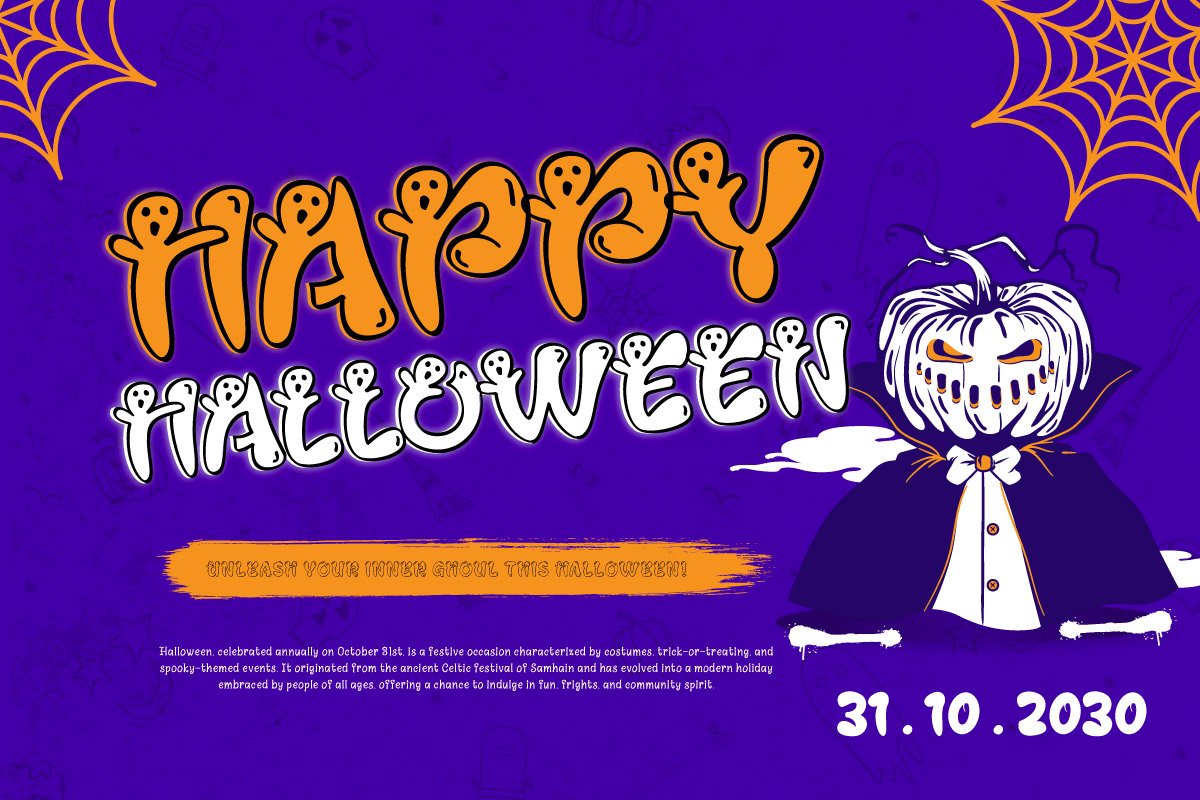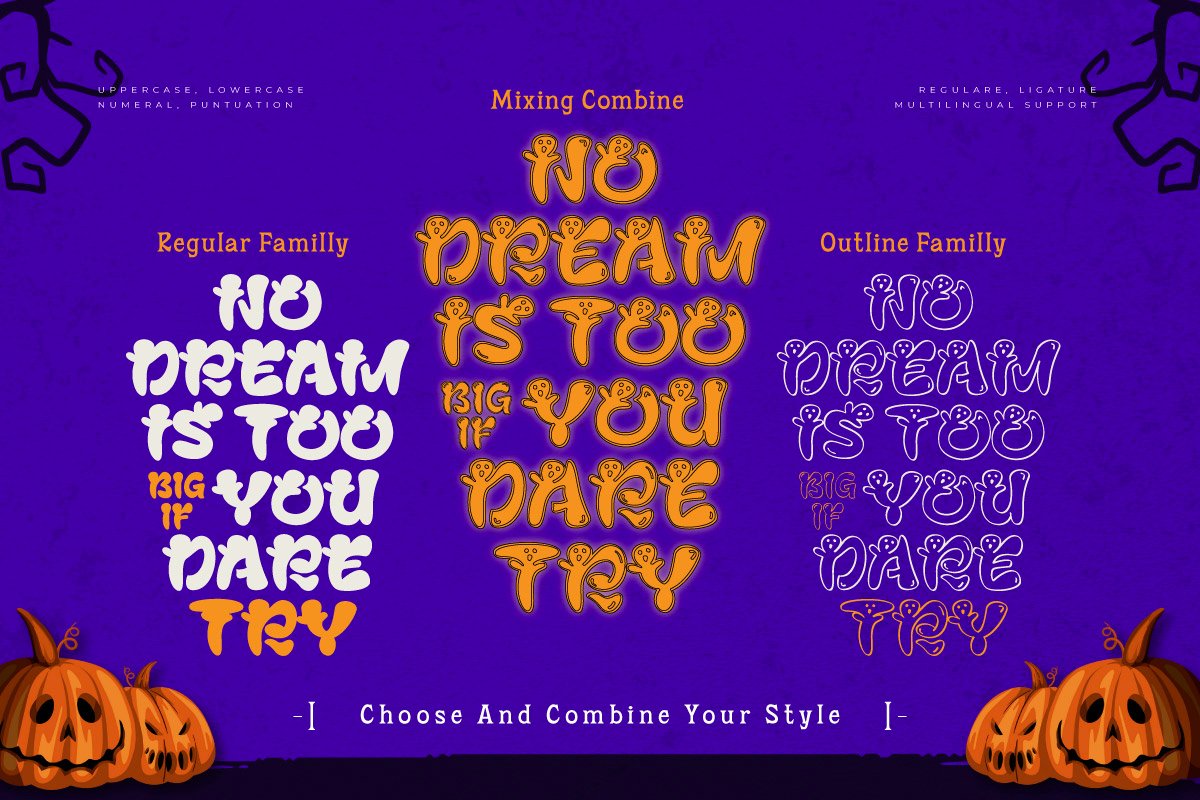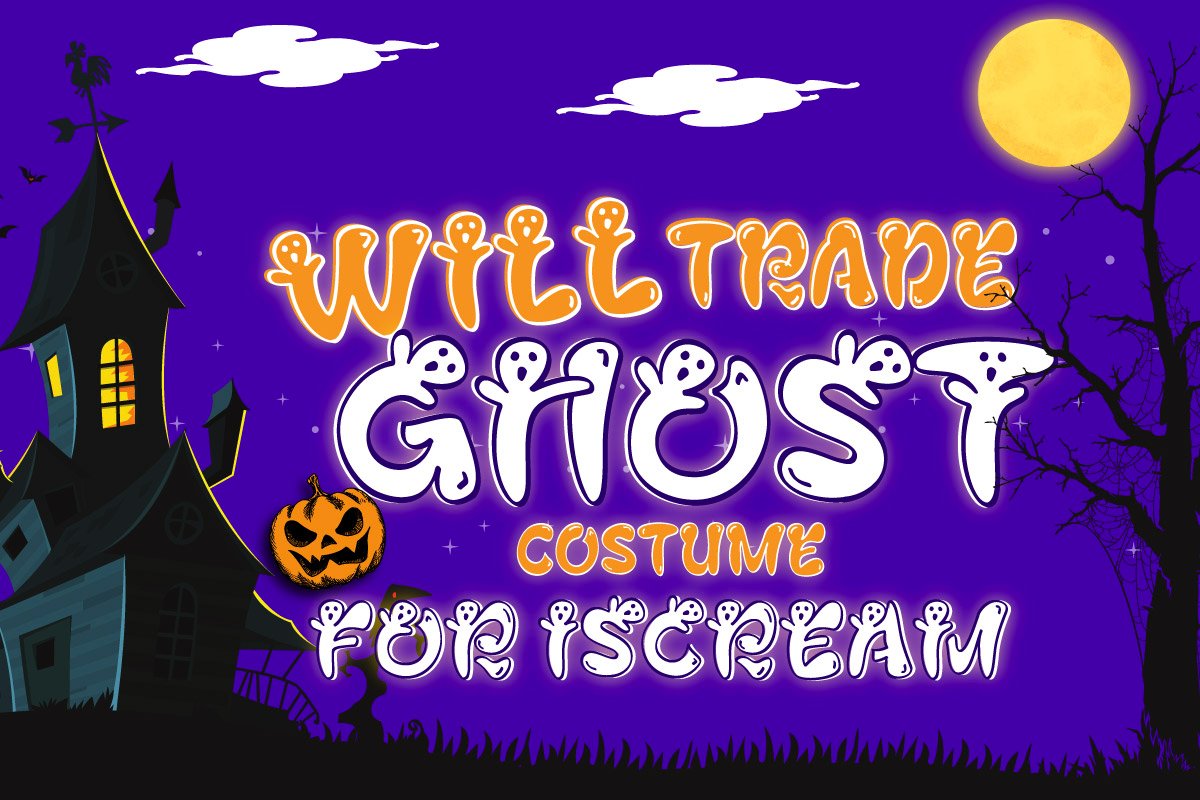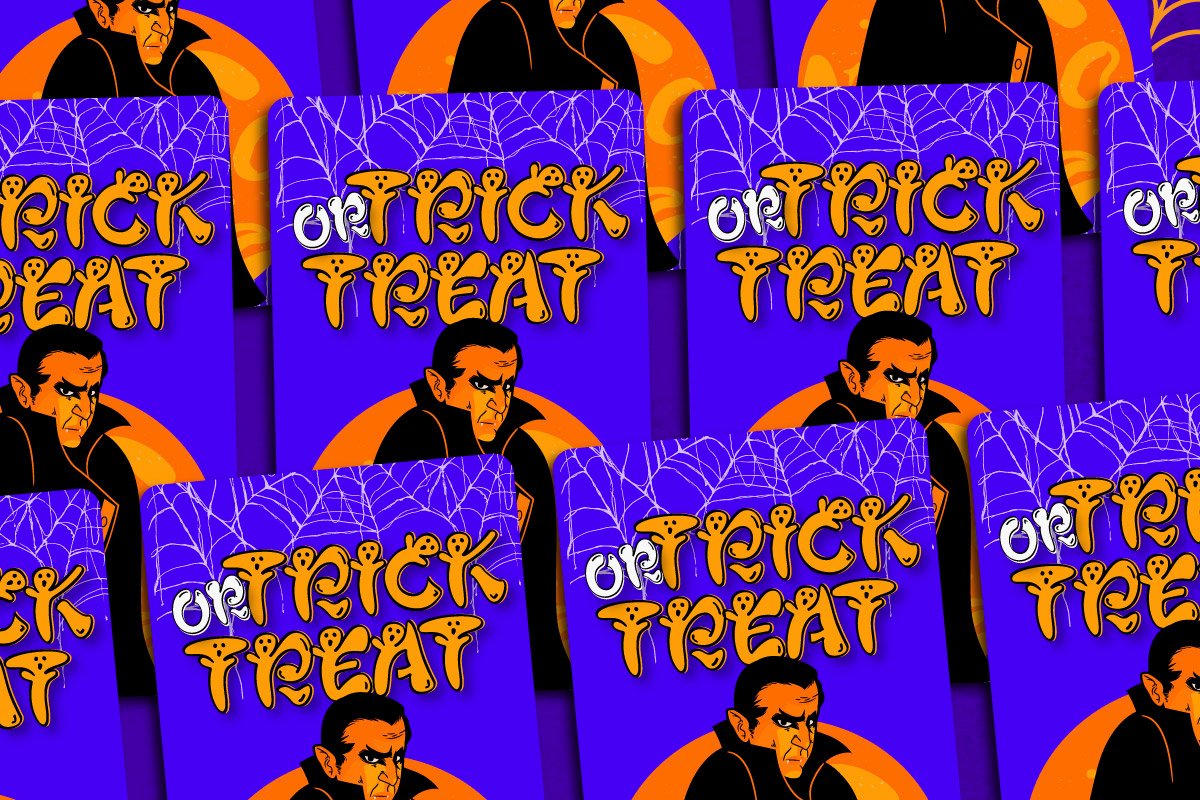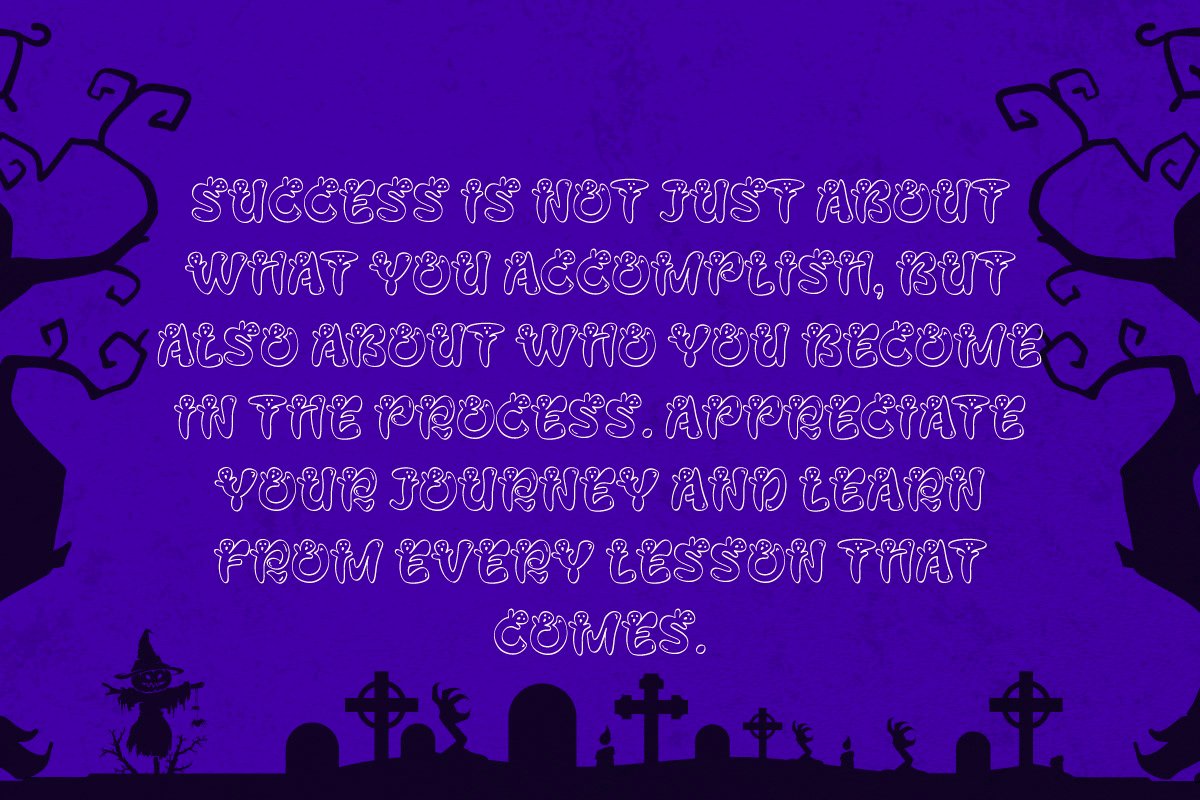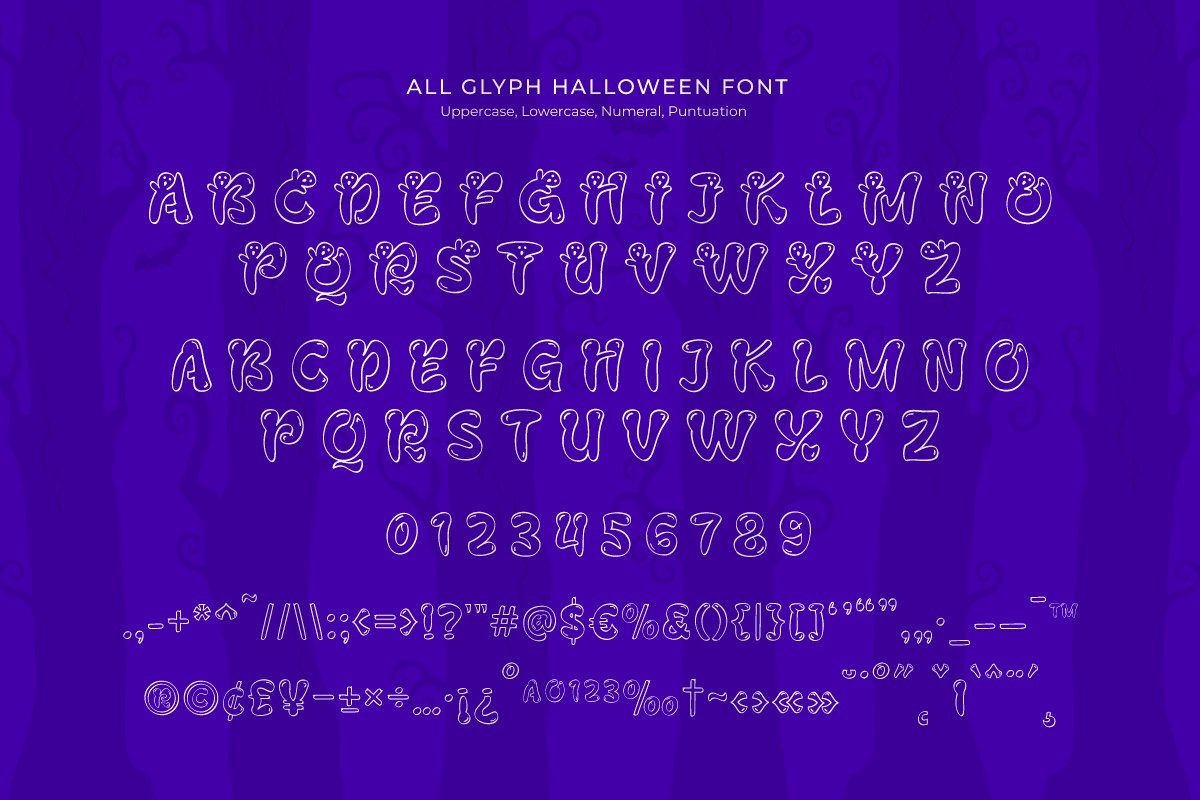
Xathi Keron – Halloween Font
Xathi Keron is a playful Halloween display font that blends spooky charm with a touch of fun. Available in Regular and Outline styles, it captures the ghostly spirit of the season with bold, bouncy letterforms that feel both eerie and entertaining. Each character is designed to bring a sense of movement, as if little phantoms are dancing across your text.
Ideal for Halloween posters, party invitations, product packaging, book covers, or digital artwork, Xathi Keron instantly adds a creepy-cute vibe to any design. Whether you want a striking headline or a haunting accent, this font ensures your project stands out with personality and festive flair.
With uppercase, lowercase, numbers, punctuation, and multilingual support, Xathi Keron is a versatile typeface that helps your Halloween creations come alive.